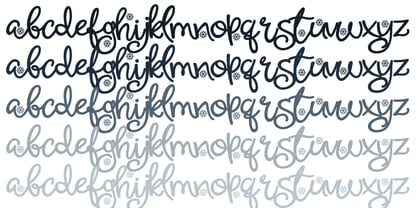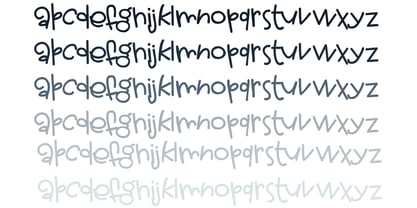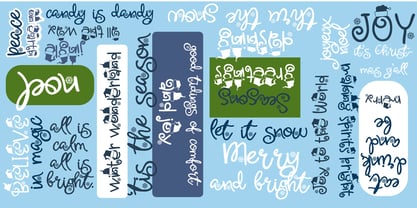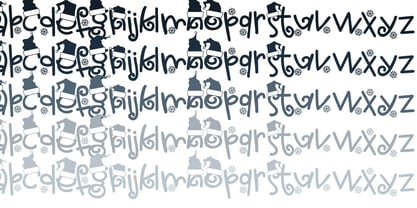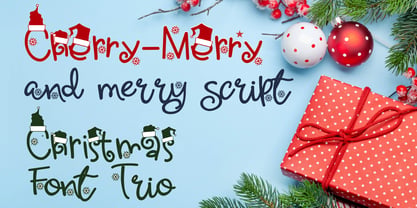
ZP Cherry Merry
by Illustration Ink
The ZP Cherry Merry Font Family was designed by Illustration Ink and published by Illustration Ink. ZP Cherry Merry contains 9 styles and family package options. More about this family
This hand-crafted font trio is a whimsical font wearing Santa hats, a plain version, and a perfectly coordinated script. Hand-crafted fonts can be either formal or informal, and they can be used for a variety of purposes. Some of the characteristics of handwritten fonts include: The letters are not perfectly uniform in size or shape. There may be slight variations in the spacing between letters and words. The font may have a "wiggly" or "squiggly" appearance. The font may be difficult to read at small sizes. Handwritten fonts can be a great way to add a casual touch to your designs. They can also be used to create a sense of nostalgia or whimsy. However, it is important to choose a handwritten font that is appropriate for the project you are working on. A formal handwritten font may not be appropriate for a casual invitation, while an informal handwritten font may not be appropriate for a corporate document.
ZP Cherry Merry